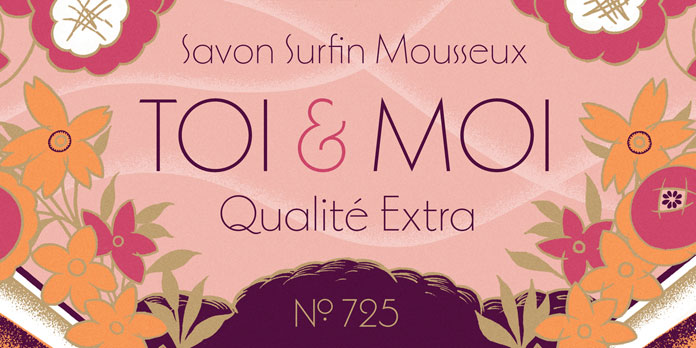
Marseille, an Art Deco-inspired font from Louise Fili Ltd.
Designed by Louise Fili and Nicholas Misani in 2017, Marseille is a beautiful Art Deco-inspired font. It is mainly based on Louise Fili’s beautiful cover design for the Marguerite Duras novel, The Lover. This elegant display typeface includes both caps and lowercase letters. Its extensive character set supports more than 200 languages. Marseille is well suited for a variety of typographic needs including book cover designs, vintage-inspired packaging, elegant logos, and wedding invitations, just to name a few. Its distinctive flair conveys a timeless and elegant touch. This beautiful Art Deco font is currently available as an introductory offer on MyFonts. To get further information, just follow the link below.